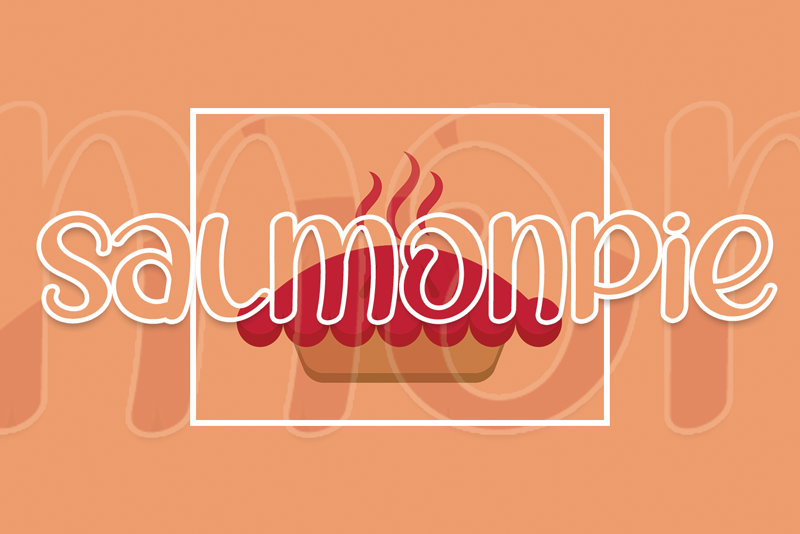
Salmonpie is a quirky and chic lettered display font. It can easily be matched to an incredibly large set of projects, so add it to your creative ideas and notice how it makes them stand out! Attention : Salmonpie display font is prohibited to use this font for commercial purposes or for profit without the permission of the author/admin, without being known to use this font without permission, will be subject to sanctions 5x the specified price. This font is used only for demos (Demo license) If you want to use this font for commercial use please contact email: elllulukstudio123@gmail.com or click the link below: https://www.creativefabrica.com/product/salmonpie-2/ref/761303/ If you want to see more other fonts, please click: https://www.creativefabrica.com/designer/el_hotcig/ref/761303/ Any donations are very appreciated. Paypal account for donation: https://www.paypal.com/paypalme/luluk783 thanks. |